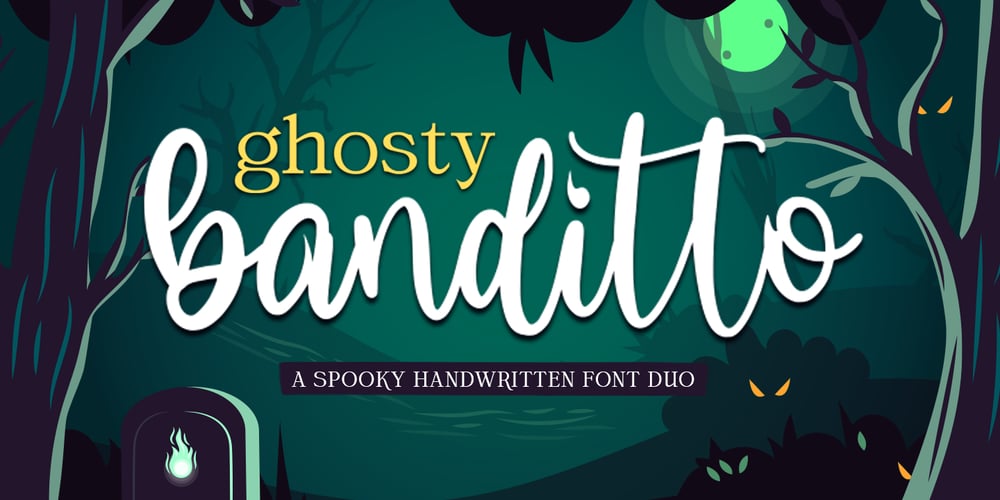
Ghosty Banditto Font Family was designed by Naufal Paramata and published by Youngtype. Ghosty Banditto contains 2 styles and family package options. (Halloween Font)Ghosty Banditto Script & Serif, This typeface is ideal for use in thick watercolor designs or handwriting styles, such as blog titles, posters, wedding elements, t-shirts, clothing, book covers, business cards, greeting cards, branding, merchandise etc.Contains full set:- Uppercase- Lowercase- Alternative- Ligatures- Punctuation- Number- Multilingual support.This font is ideal for use in watercolor designs or hand bold styles, such as blog headers, posters, wedding elements, t-shirts, clothing, book covers, business cards, greeting cards, branding, merchandise, invitations and handmade quotes and more. again. again.Thank you 🙂